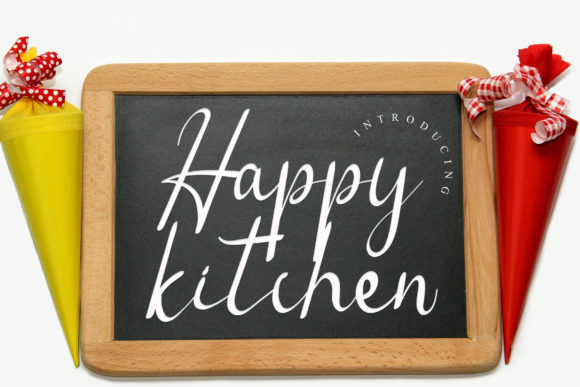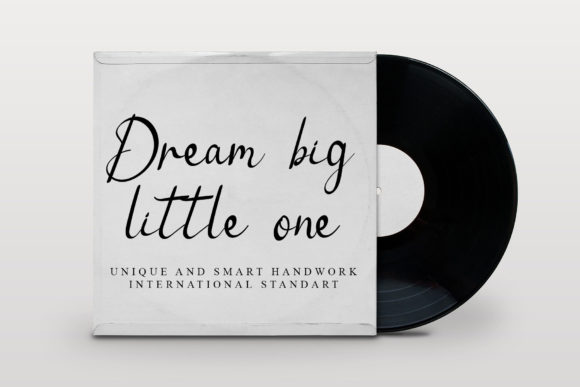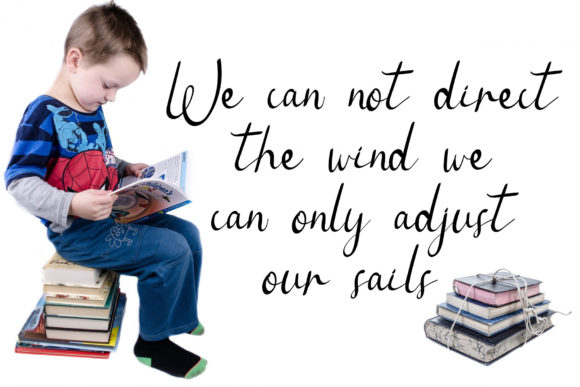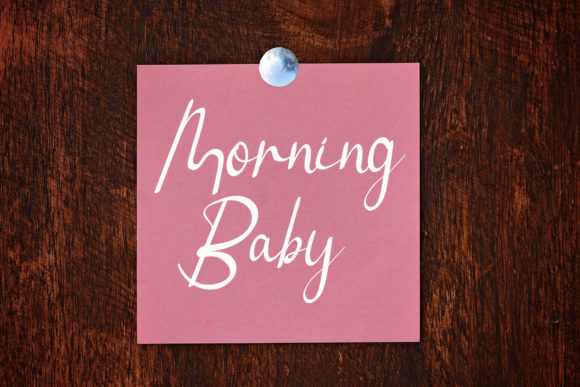
Quotes Font
About Quotes Font
Quotes is a lovely script font featuring charming, playful characters that seem to dance along the baseline. Add this font to your most creative ideas, and notice how it makes them stand out!